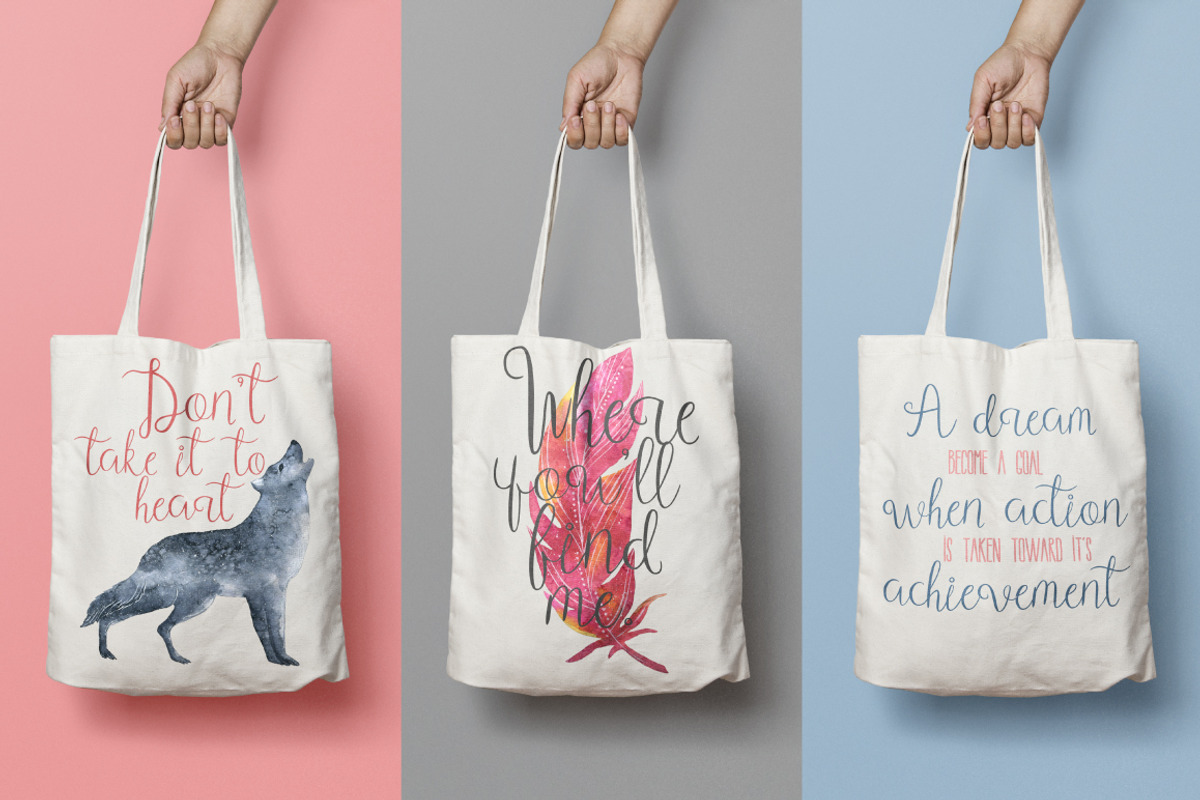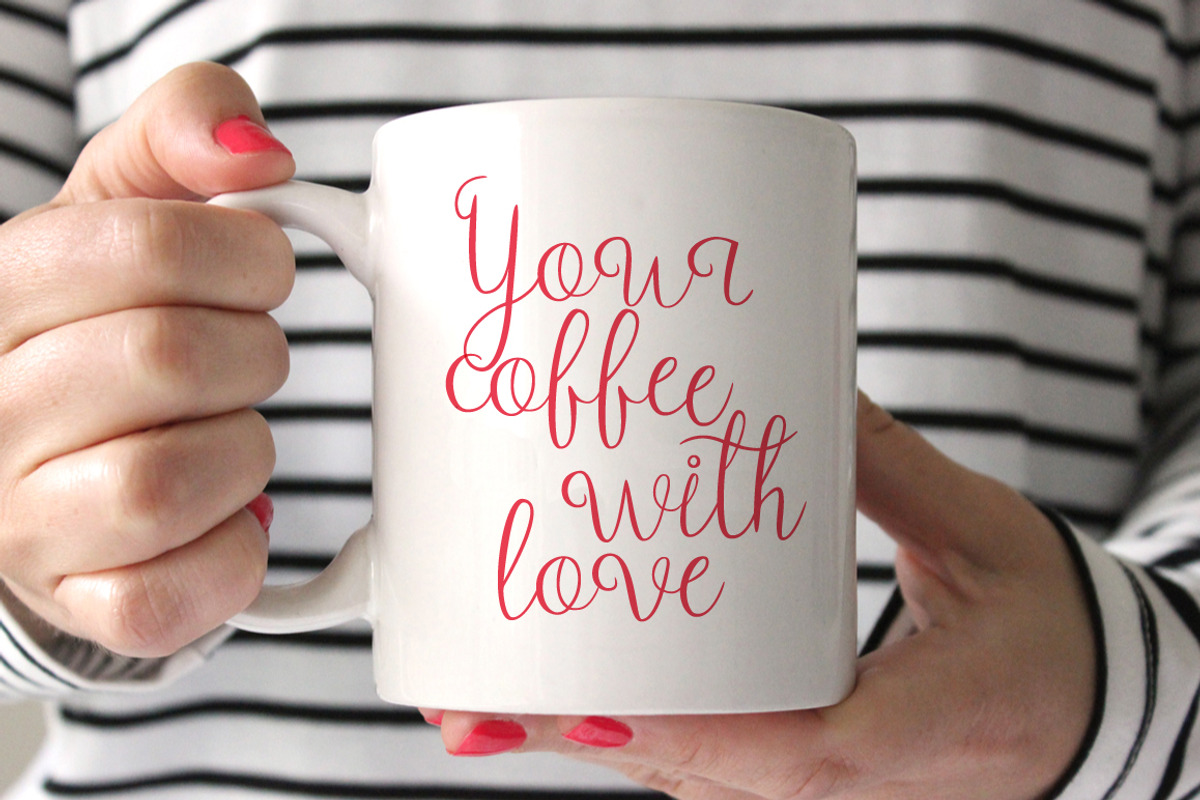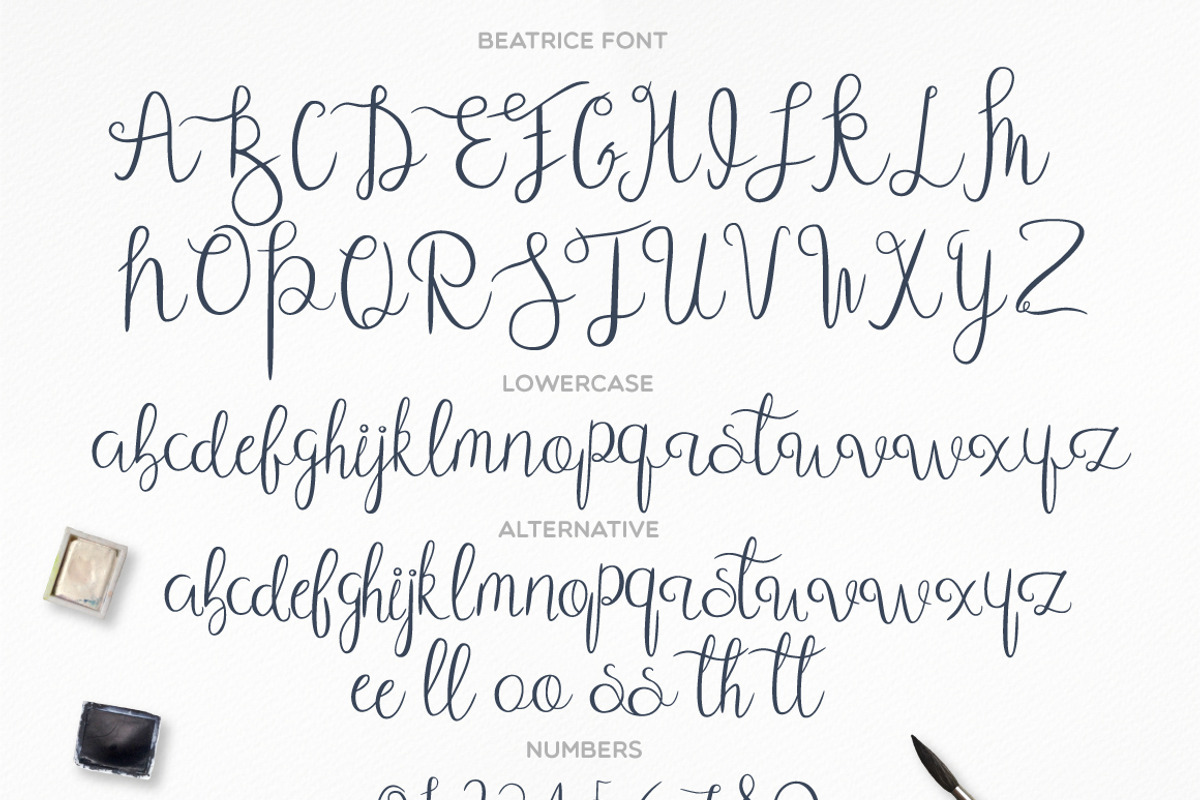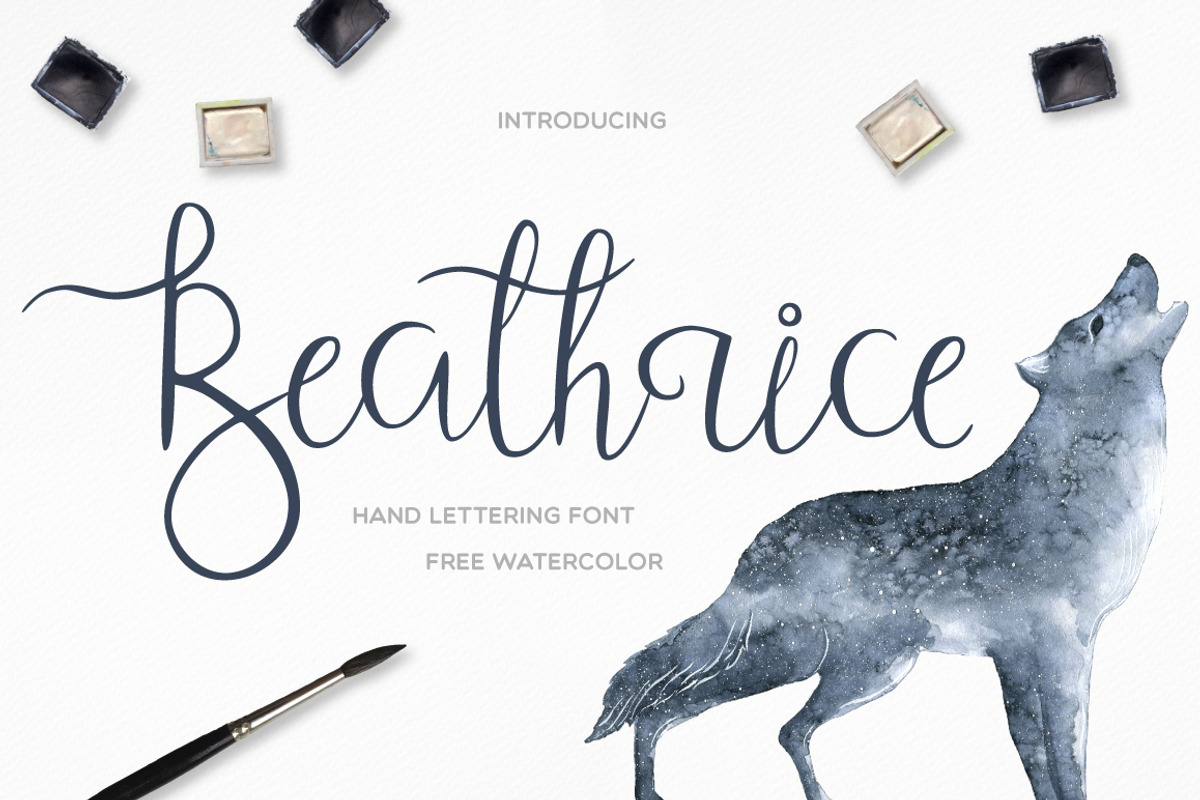
Beathrice Font
Beathrice Font by Julia Dreams is a font selected for branding, posters, packaging, typography.
- This font is handwritten and contains alternative letters and free watercolor elements.
Why Beathrice Font is worth a look
Beathrice Font by Julia Dreams fits naturally into Branding, posters, packaging, typography.